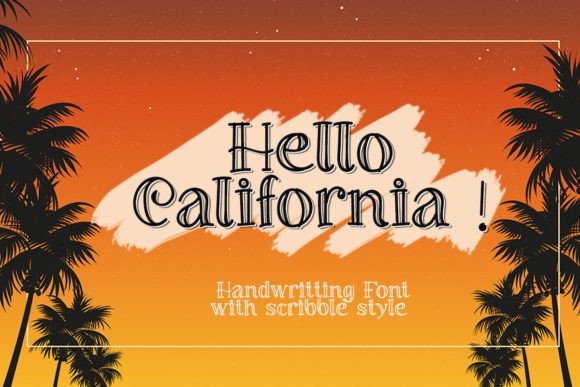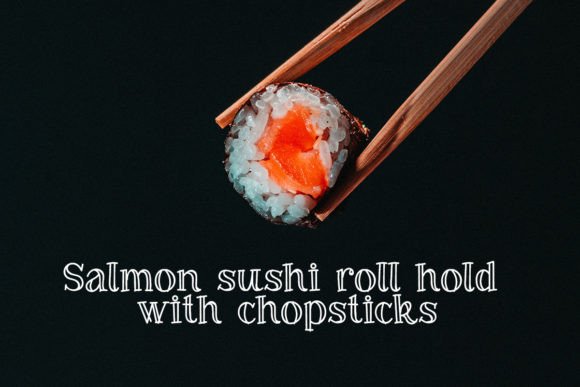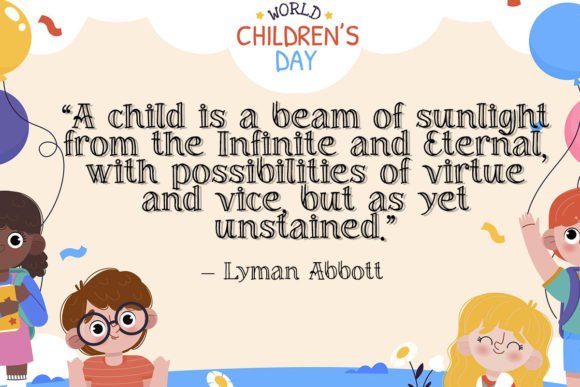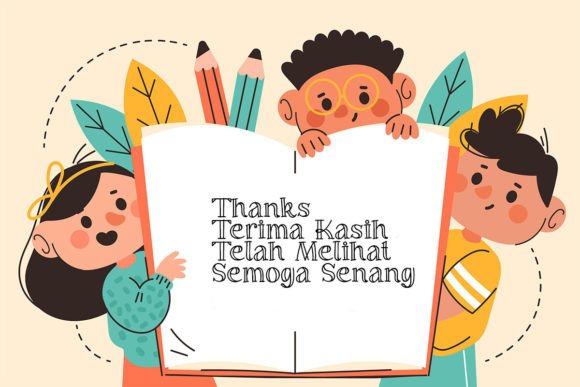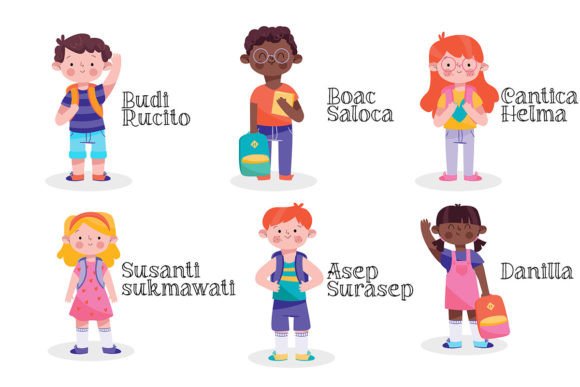
About Hello California
Hello California is lovely and light handwritten font with an original touch and a dazzling look. It will add a luminous spark to any design ideas that you wish to create!